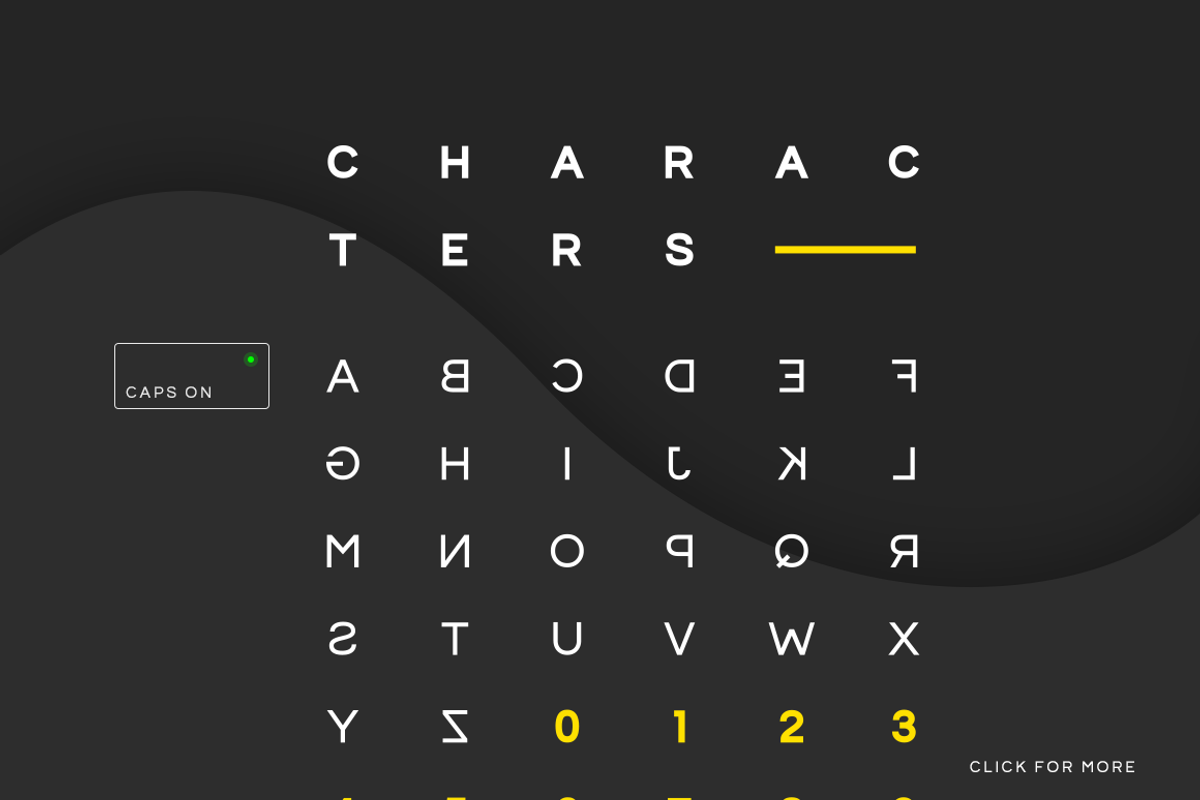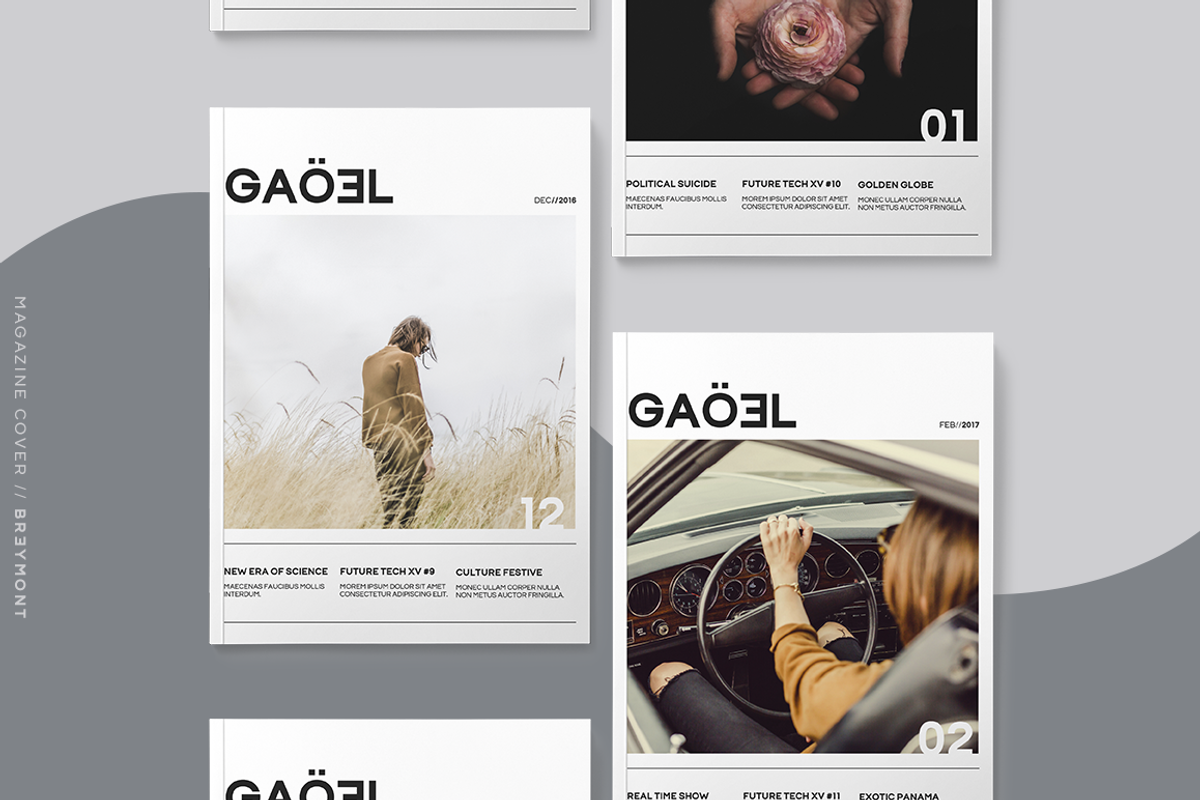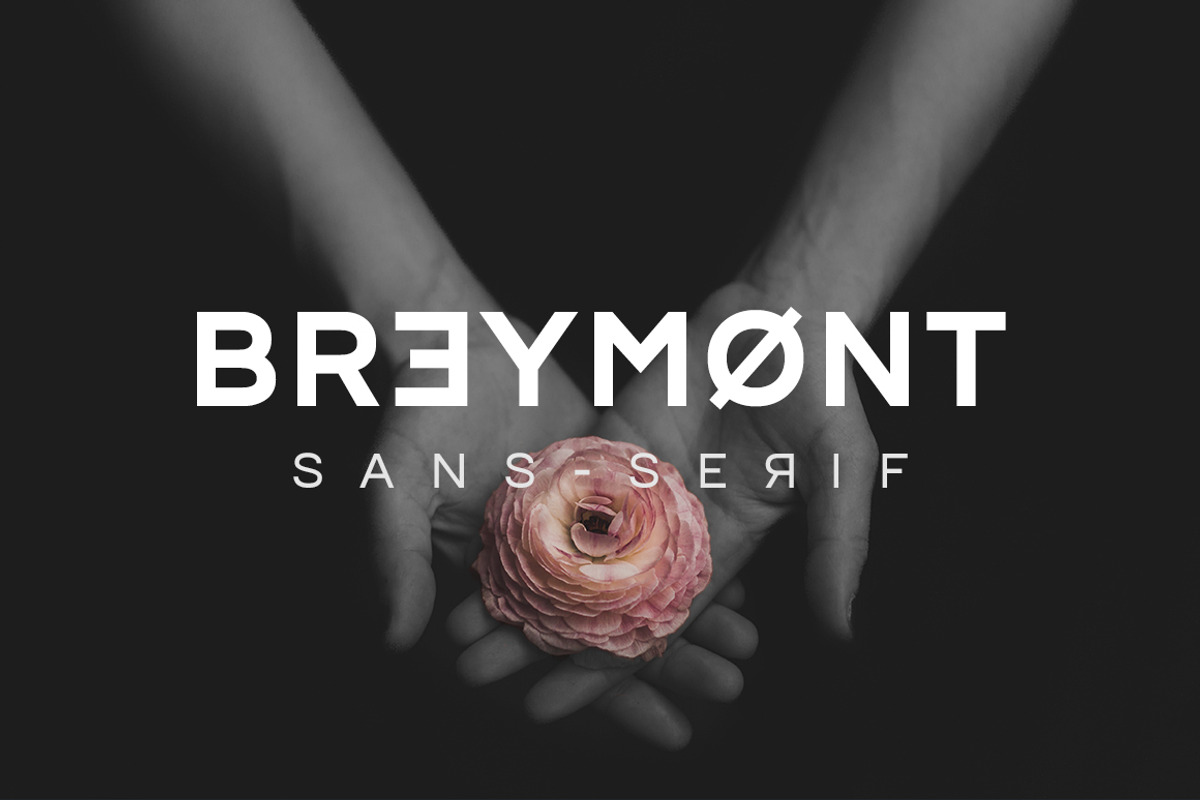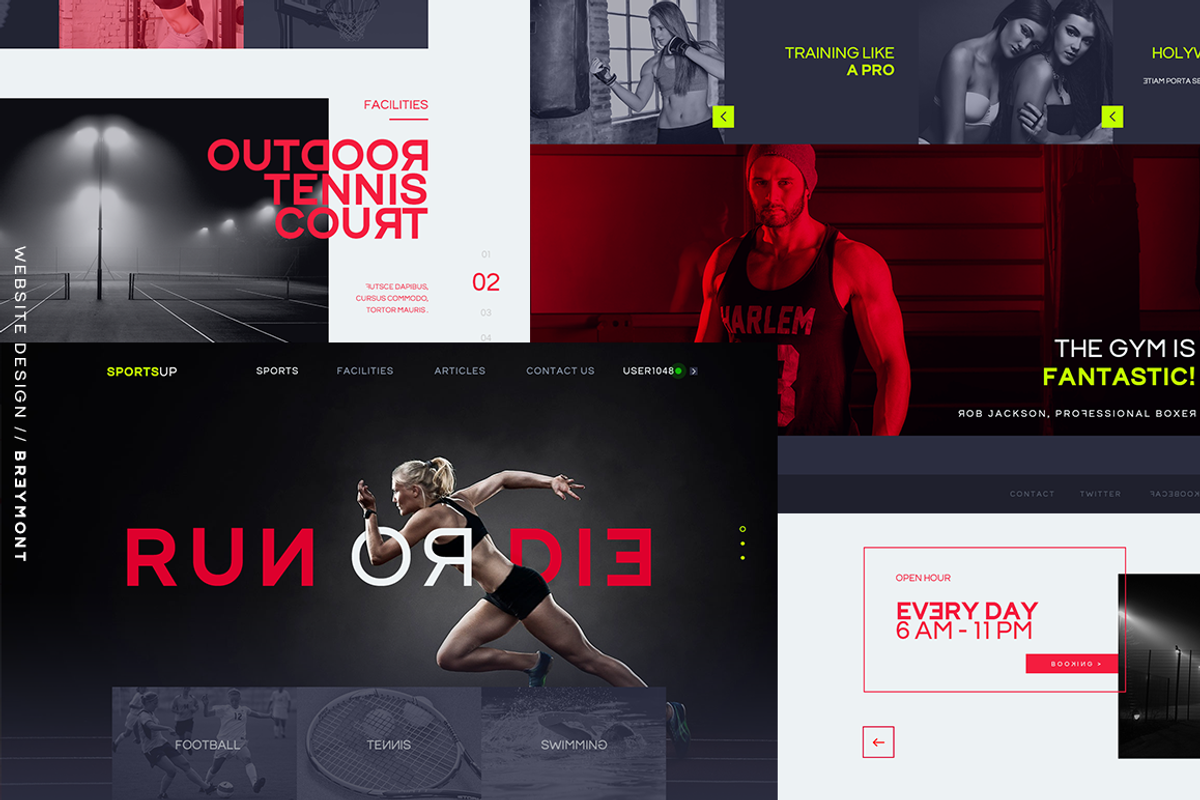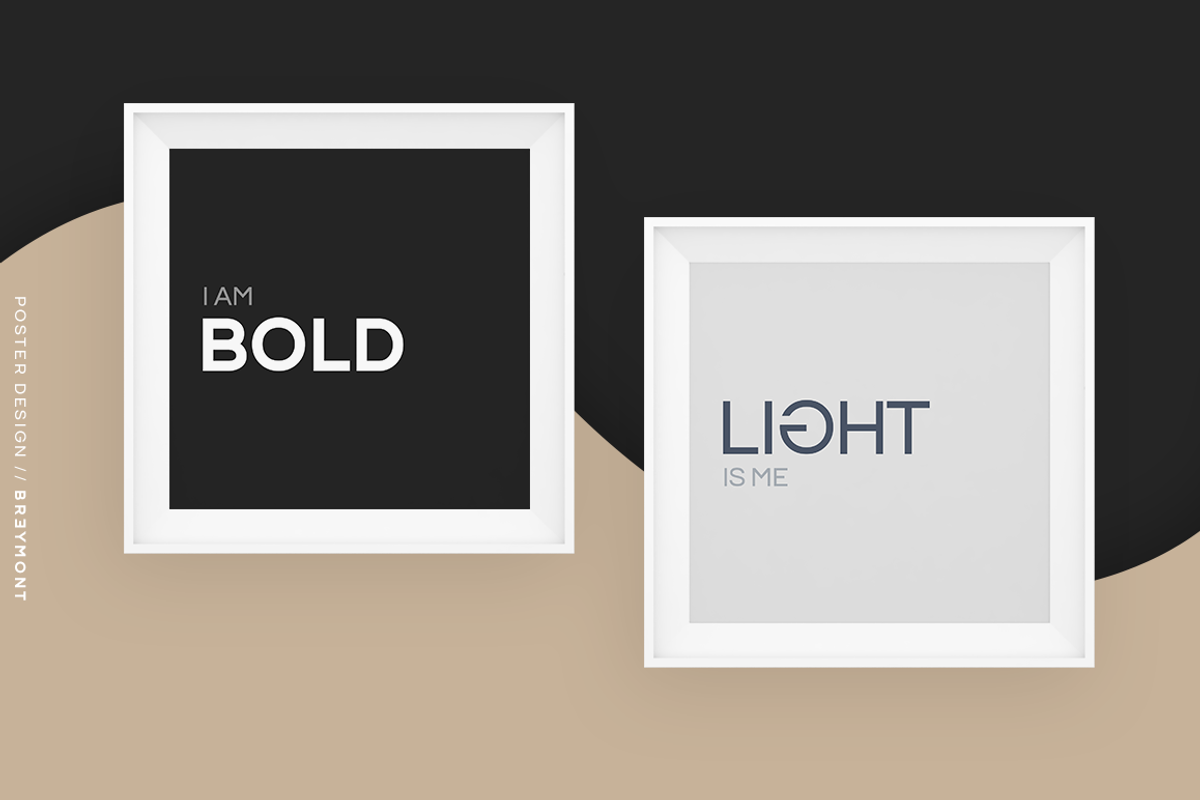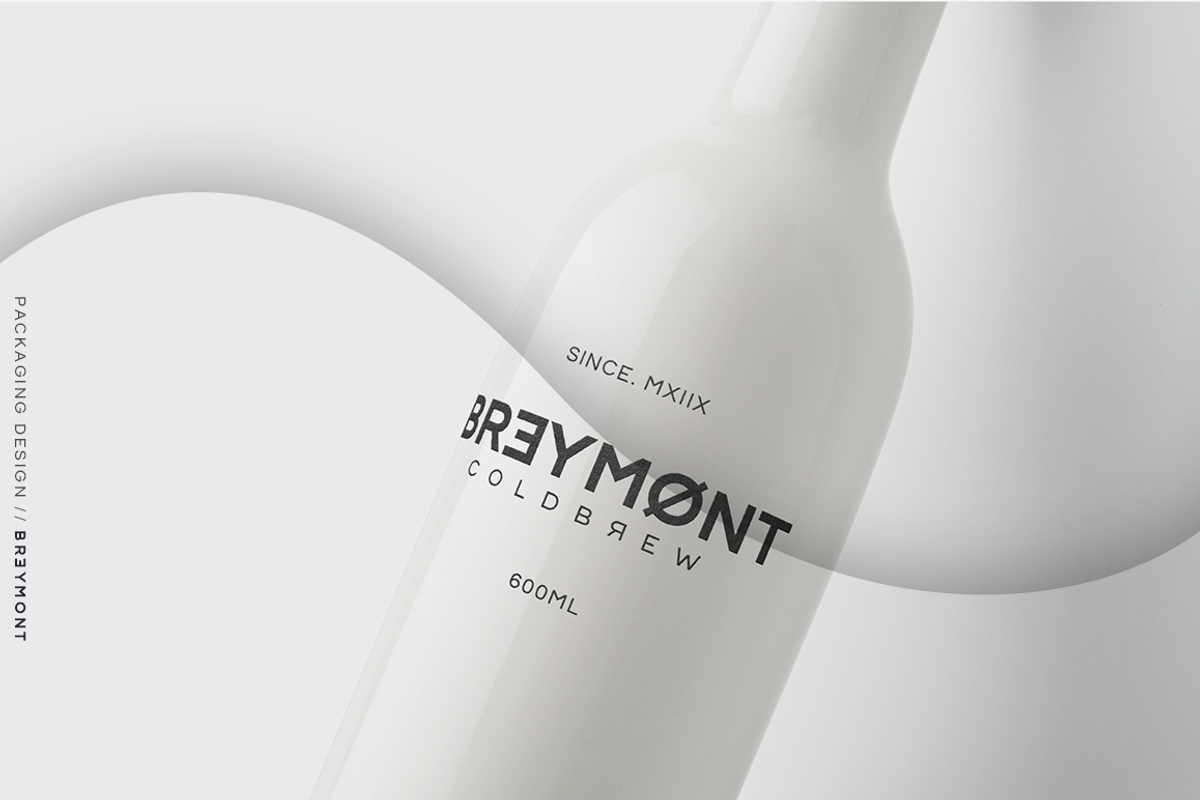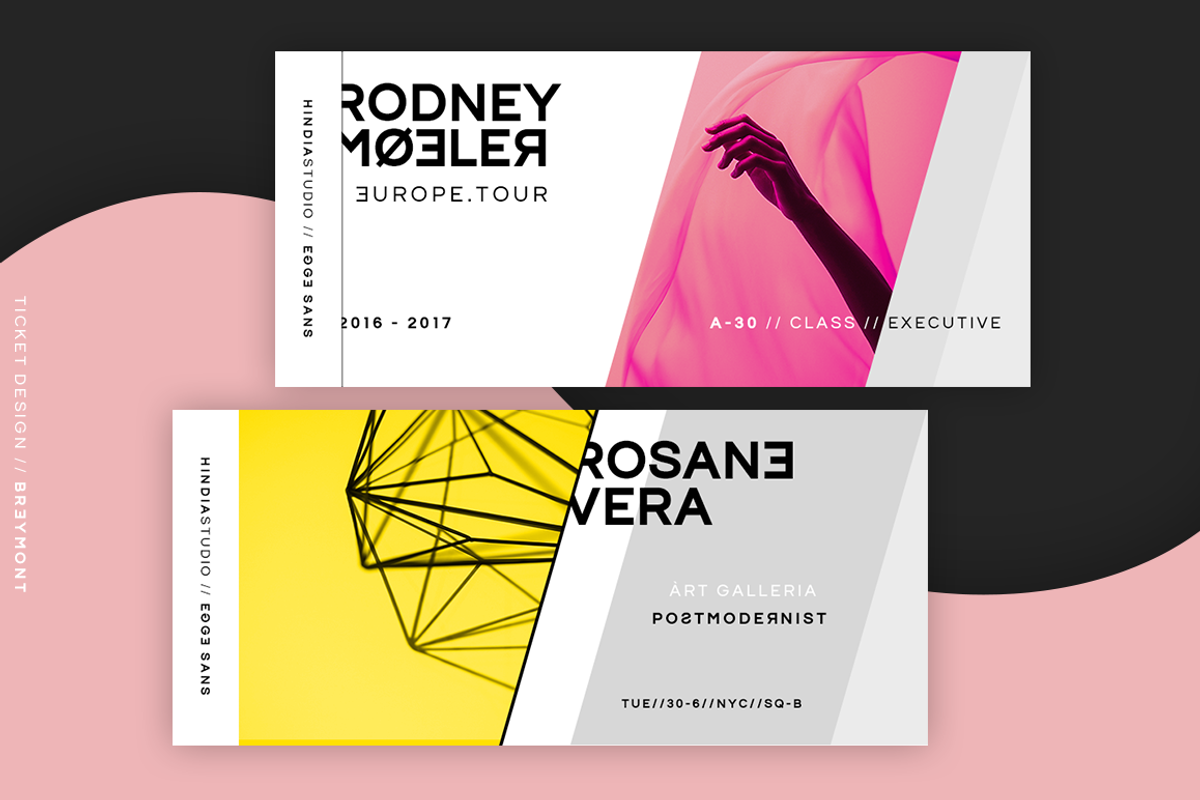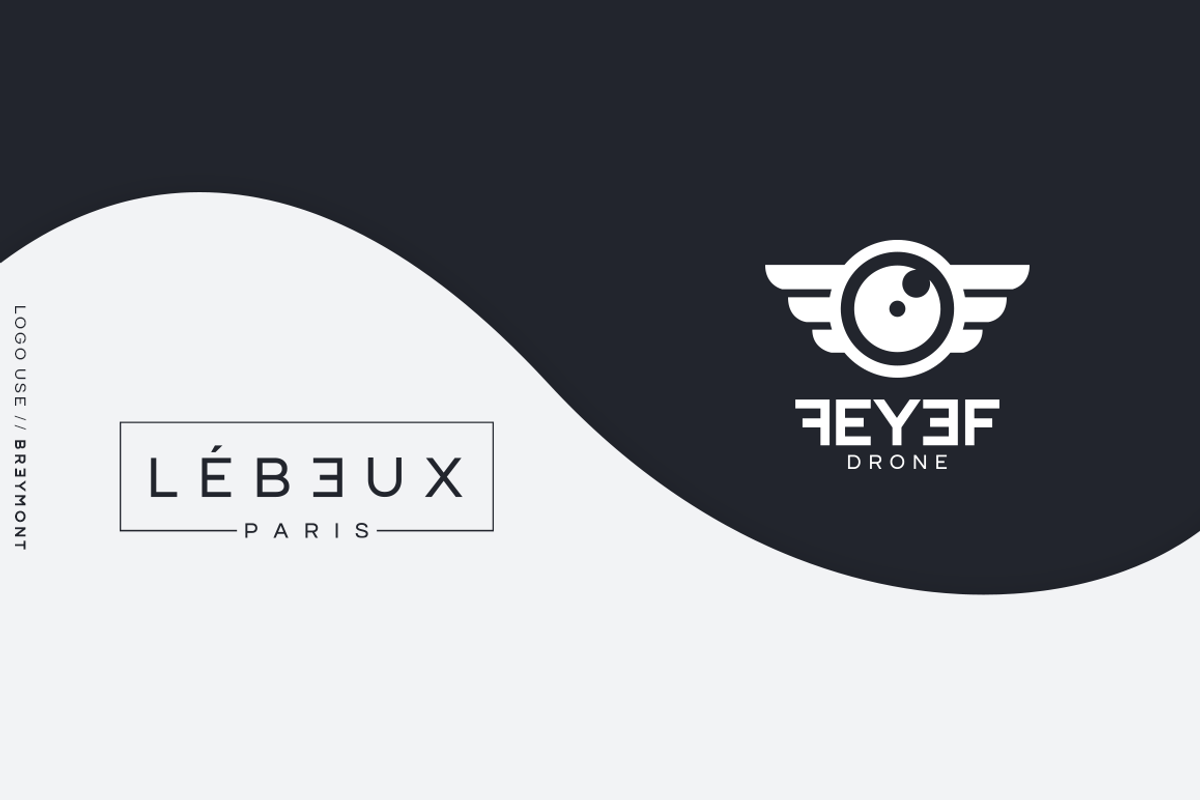
Breymont Sans
Breymont Sans Serif | A reliable tool for creatives
Minimalist, Elegant, and Exquisite. Breymont is the new modern all caps sans serif typeface that always feels right under any circumstances. The dimensions of the letters and the general sense are modern and contemporary but also retain the refined functional touch of the rational structure. The result is a unique and unorthodox sans typeface that is perfectly suited for graphic design application ranging from editorial and corporate design to web and interaction design.
- Breymont Bold
- Breymont Light
- 2 styles uppercase
- Punctuations